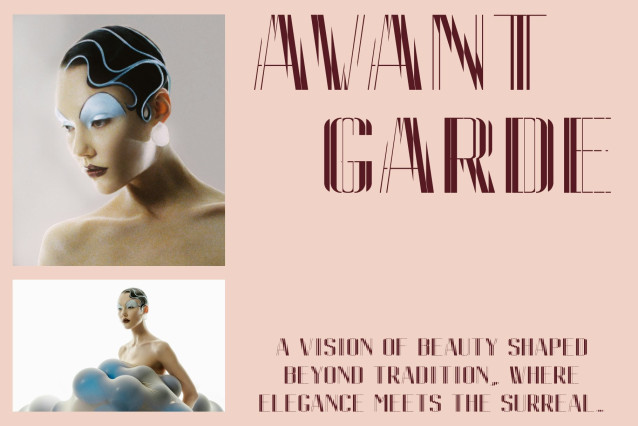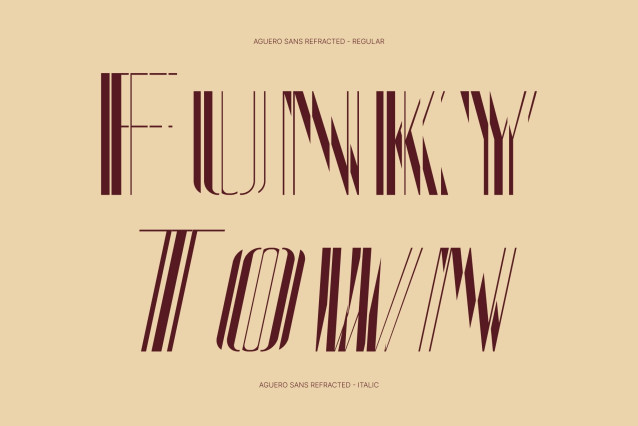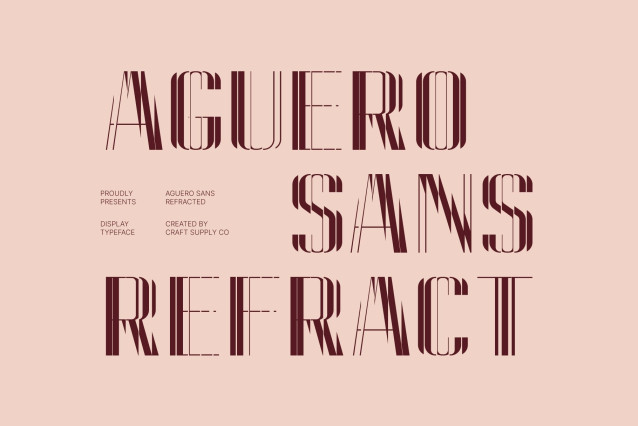
Aguero Sans Refracted – Modern Sans Serif Font: Where Luxury Elegance Meets Futuristic Surrealism
Geometric Contemporary Forms with Elegant Minimalism
This is a modern sans serif display font that blends elegance, luxury, and surreal futuristic aesthetics into a refined visual experience. Designed with geometric shapes, low contrast, and clean contemporary lines, the font creates a sleek and sophisticated appearance that feels stylish, modern, and effortlessly professional. Its balanced structure delivers clarity while maintaining an artistic high-fashion personality.
Refracted Effect with Futuristic Visual Distortion
This font features fragmented cuts, sliced geometric details, and dynamic line interruptions that create a futuristic and experimental atmosphere. These refracted elements mimic the behavior of reflected light, adding motion, depth, and digital surrealism while preserving the font’s elegant and clean foundation.